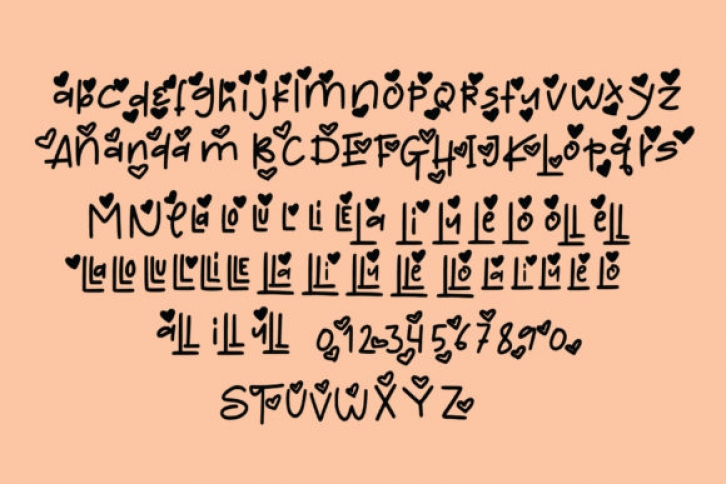
Santa Love is the best choice of font for anyone who loves Christmas! This winter font is perfect for cards, prints, invitations, arrange illustration and decoration.